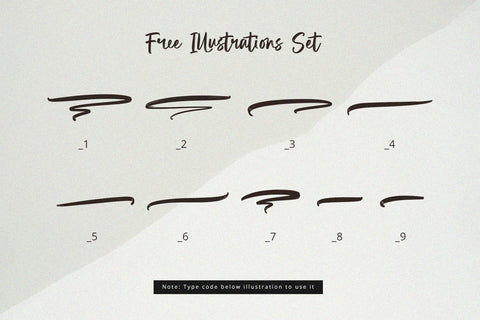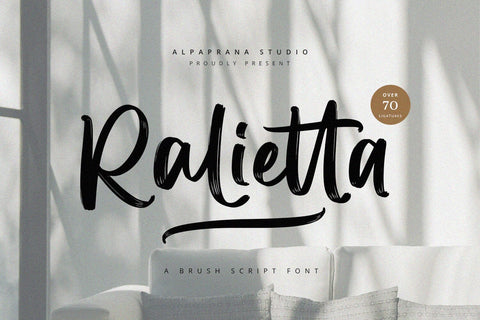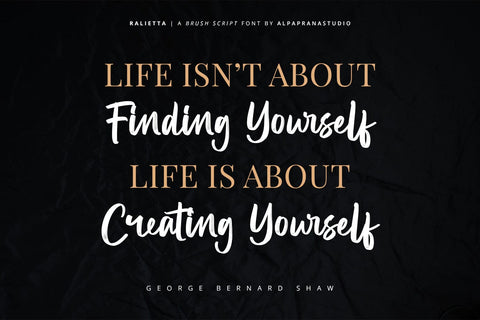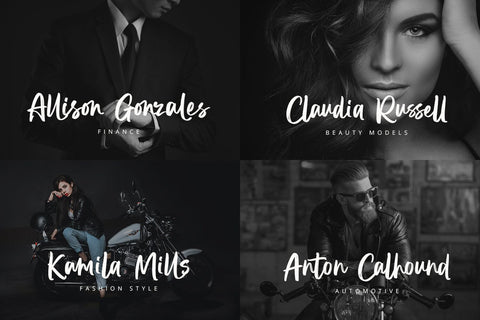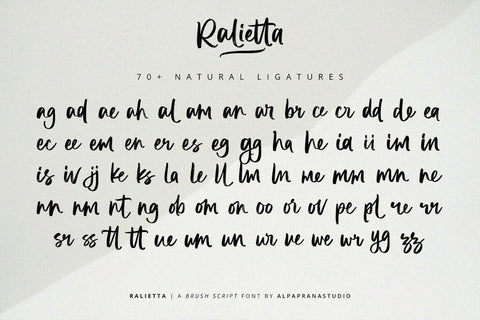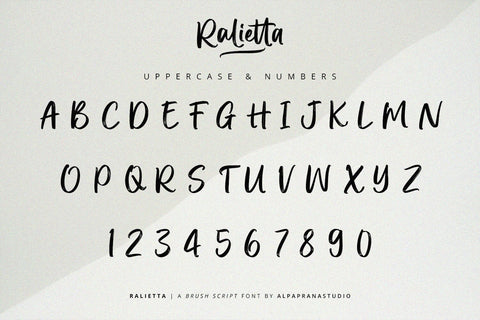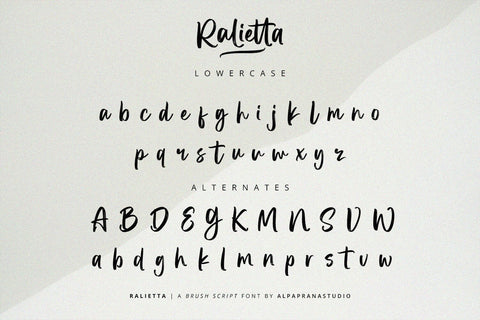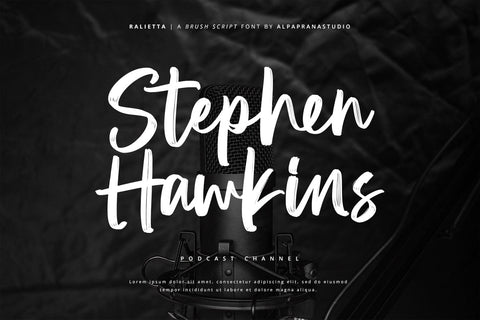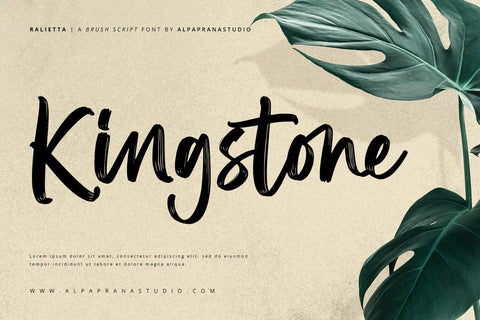
Ralietta - Brush Script Font
Ralietta is a brush script font with natural and modern feels. It will be perfectly used for Branding, Logo Design, Lettering, Logotype, Clothing, Poster, magazine, packaging, posters, shopping bags, t-shirts, book covers, photography, special events and other design project.